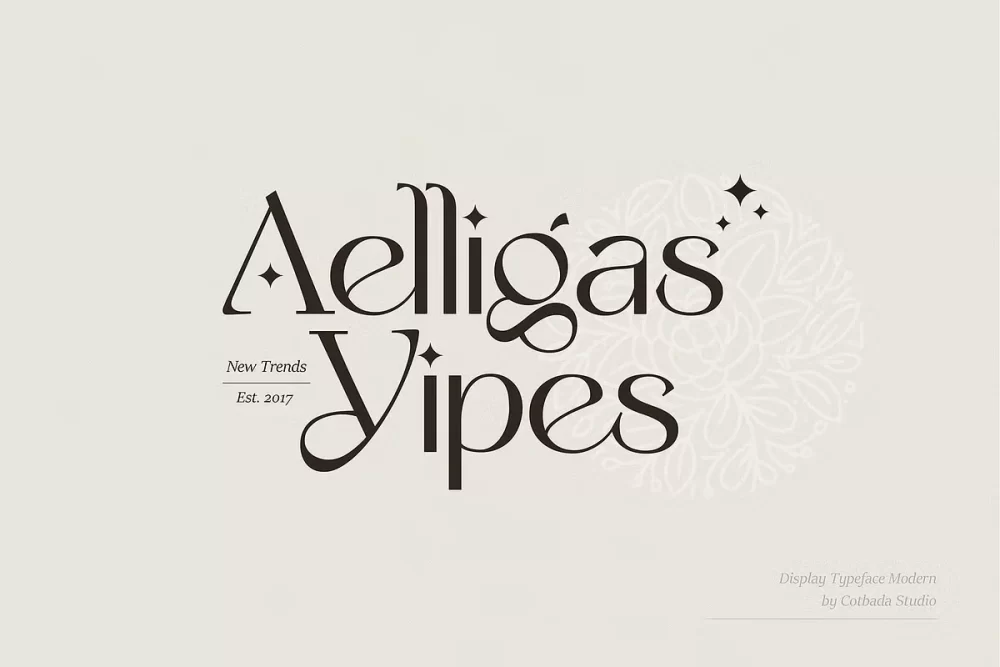
Yipes Font
Yipes is a gorgeous display typeface that is both classically elegant and modern. Create beautiful wedding invitations, use it as an elegant solution for your next magazine layout,logo, powerpoint templates design, quotes teks or choose Yipes Display Typeface for any graphics that require a sleek look with a vintage flair.
• Regular & Italic
• Uppercase Characters
• Lowercase Characters